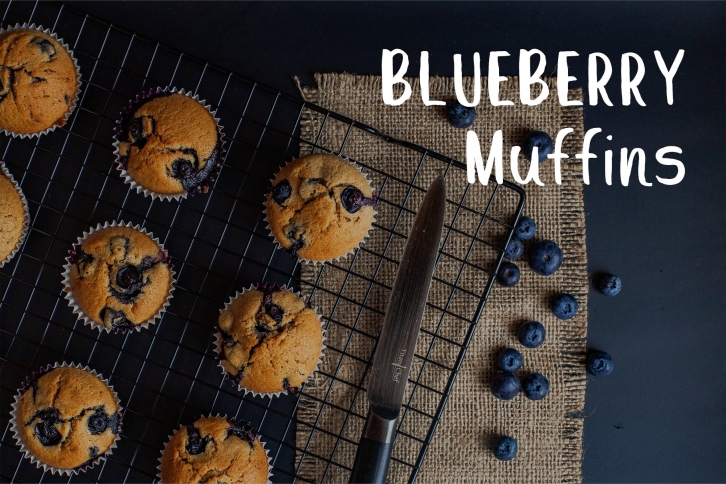
Lemon cake brush font is a relaxed and imperfect styled font. The characters were hand painted, then scanned and vectorised into a digital font file. Lemon cake brush font was designed by Zansari font foundry in Auckland, New Zealand
This font would be perfect for advertisements, logos and crafts like quote posters. This has also been quite a popular blog font